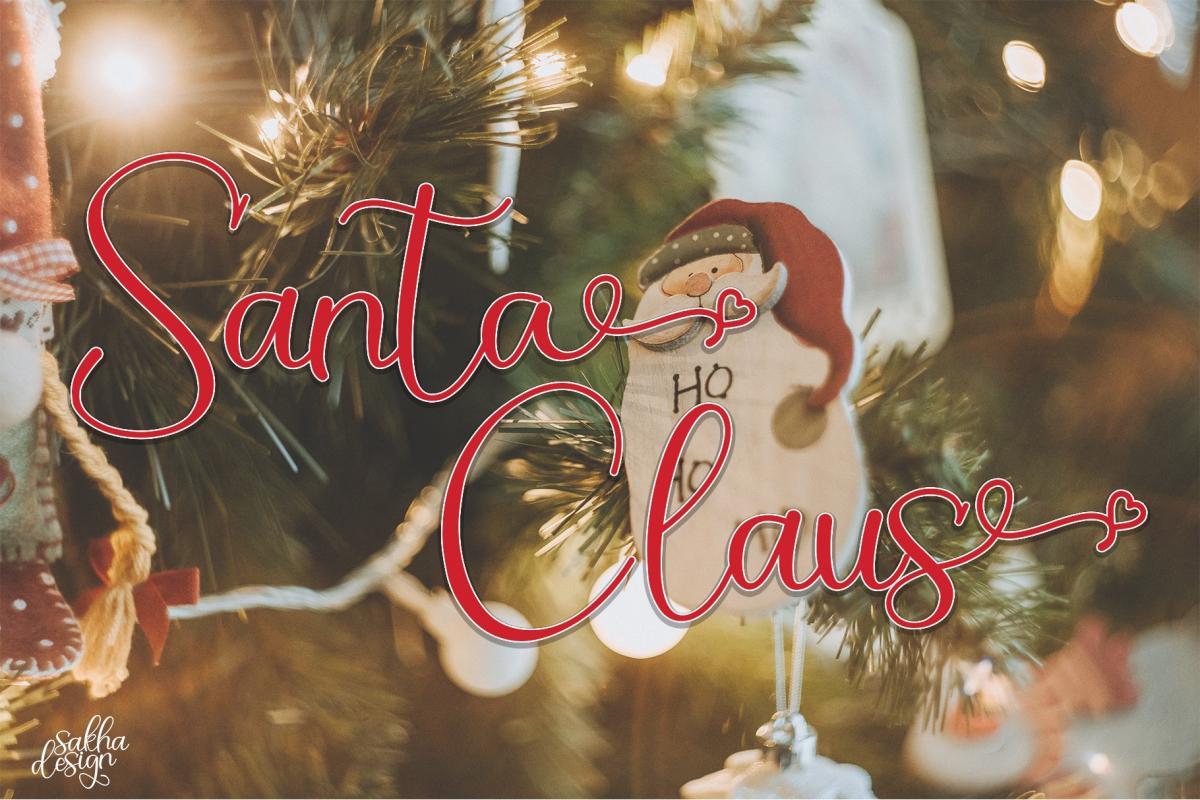
Christmas Bell Script Font is a lovely Christmas calligraphy typeface. This font can make your writing and brand elegant or beautiful. Christmas Bell is great for unique branding, photo overlays, watermark, greeting cards, posters, business card, invitations, wedding, photography, fashion, apparel, letter, stationery, etc.
A wide range of swashes (a-z), alternates (a-z), ligature and support multilingual are included so that you can give your logo or name a custom, hand-calligraphy look.